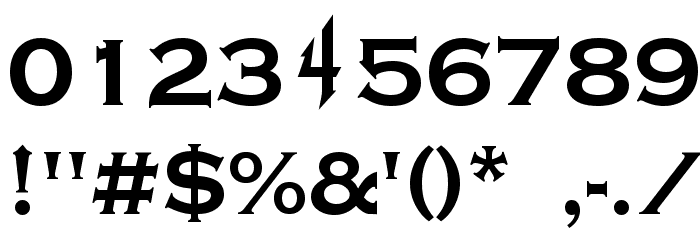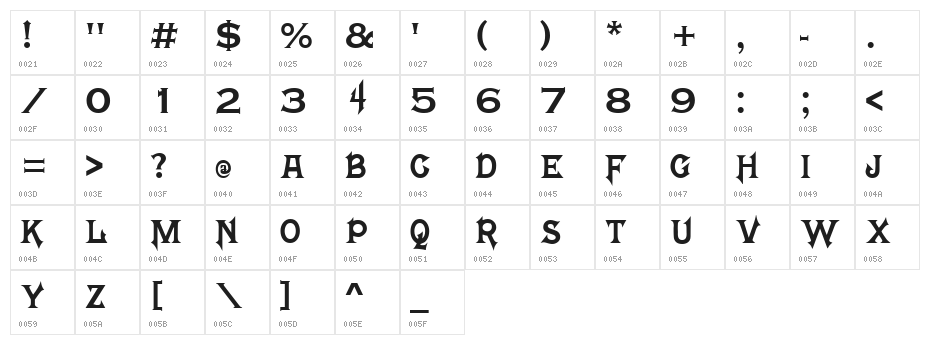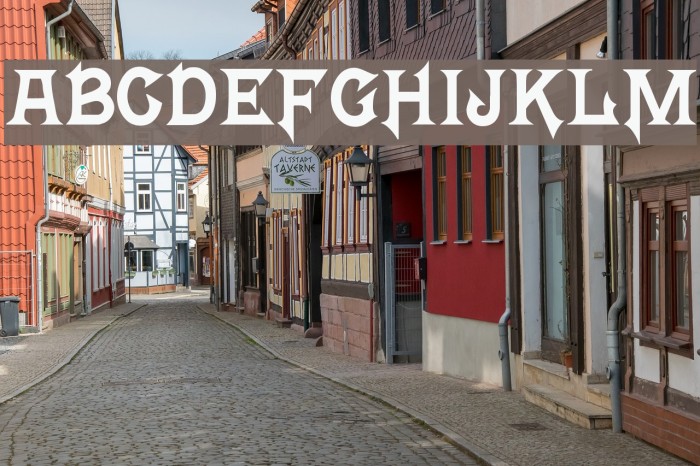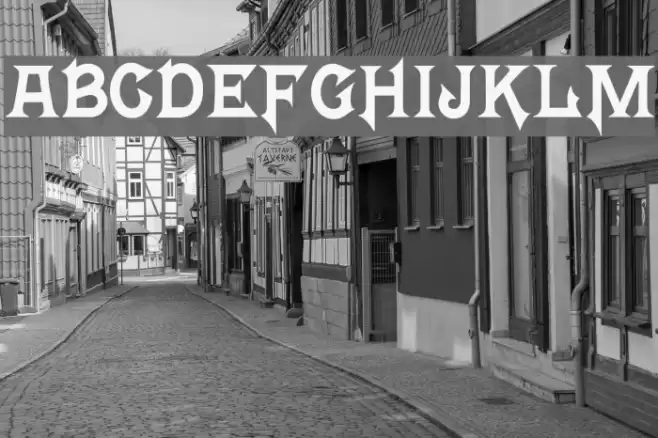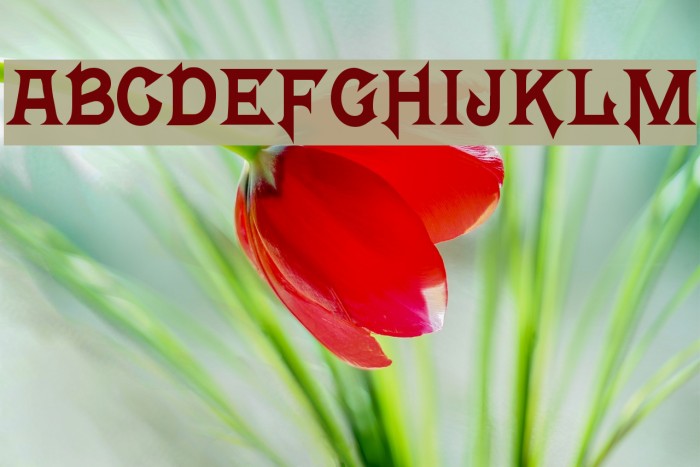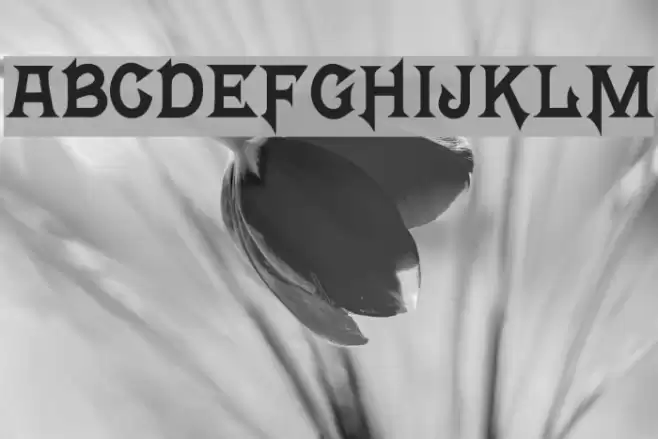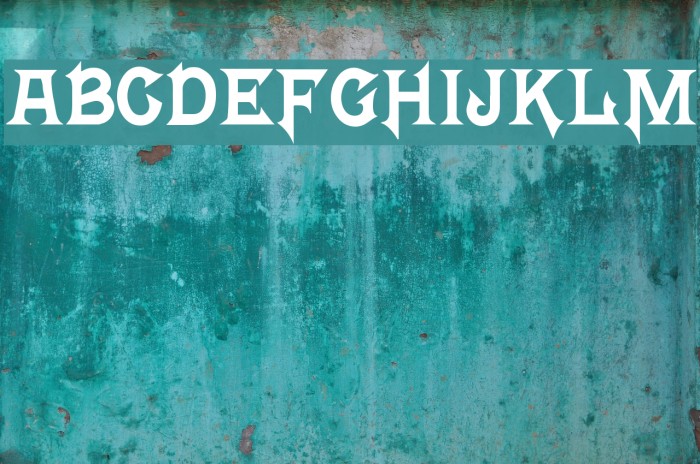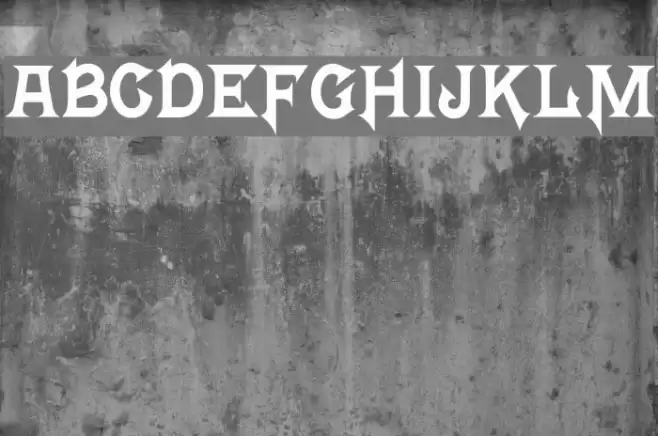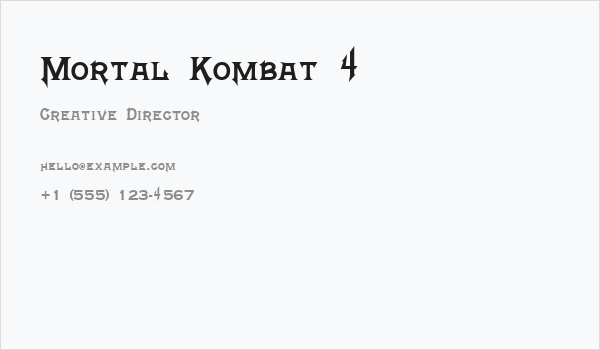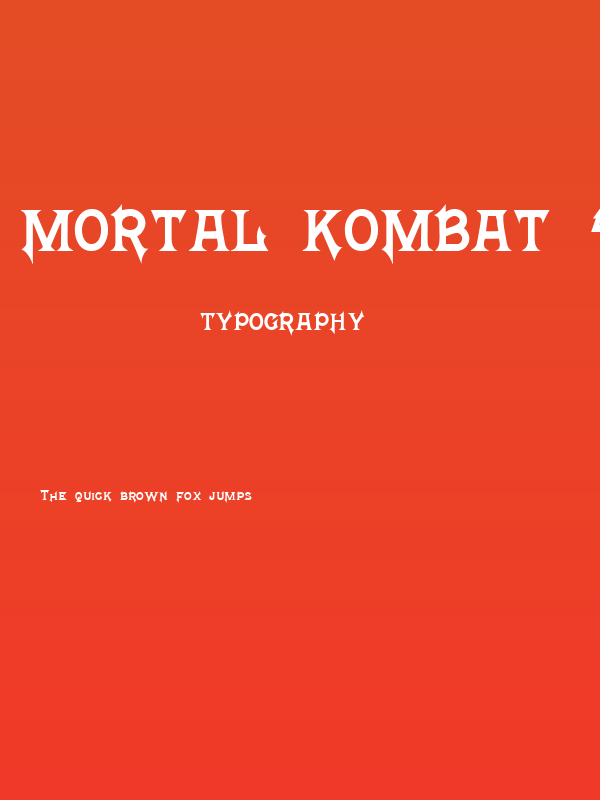
Mortal Kombat 4 Font
Mortal Kombat 4 Description
This font features a bold and aggressive design, characterized by sharp, angular serifs and a strong presence. The letters have a distinct, edgy appearance with pointed elements that give it a dynamic and intense look. The uppercase and lowercase characters maintain a consistent style, emphasizing the font's boldness and unique flair. The numerals and special characters are designed to match the overall aesthetic, making it suitable for projects that require a striking and memorable typeface.
| Proposed Projects | Ideal for video game titles, movie posters, branding for edgy products, and any project needing a bold, memorable typeface. |